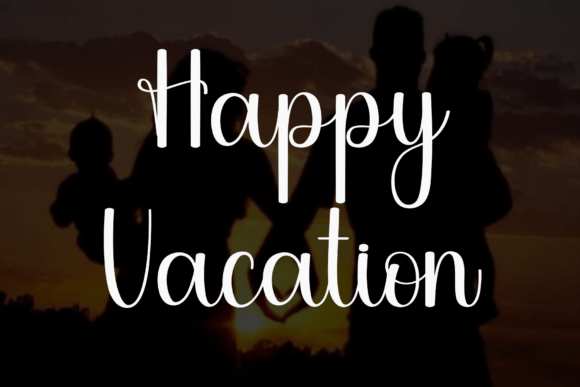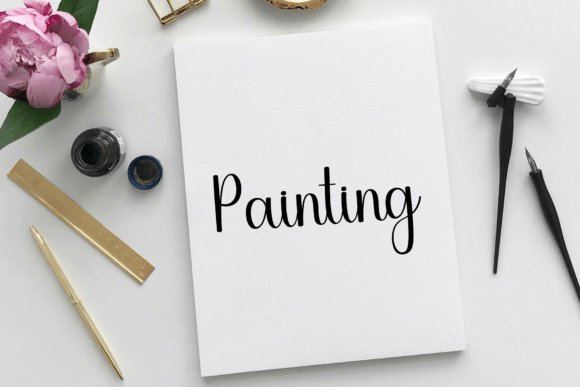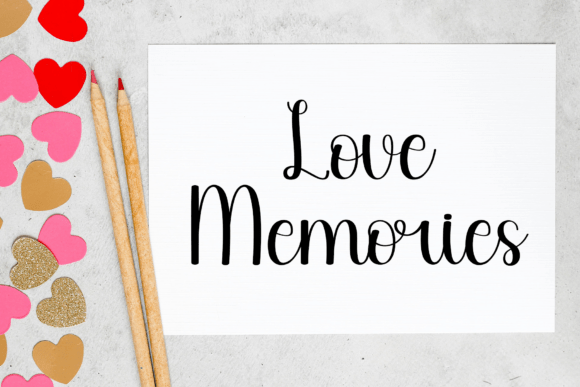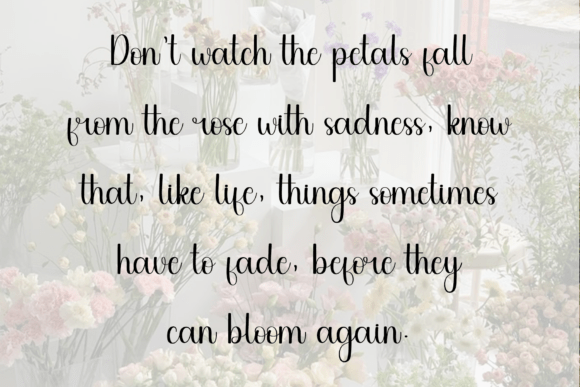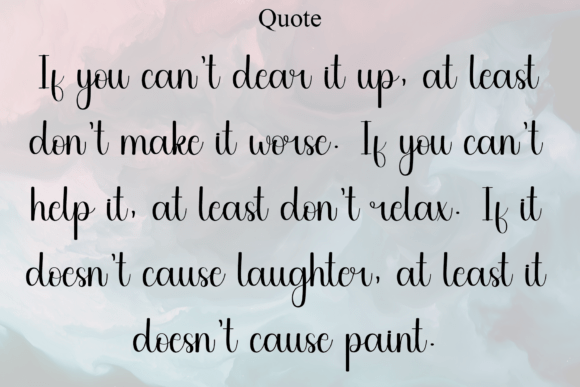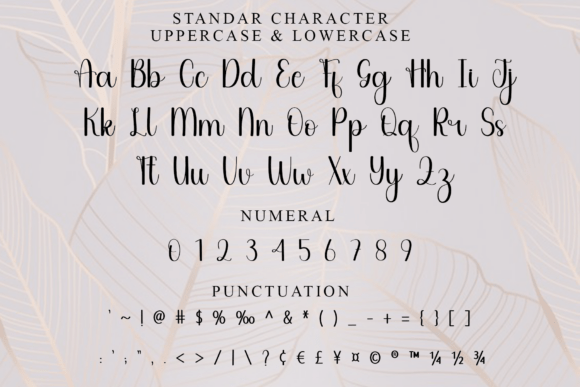
The Digital Planner Font: A Friendly and Creative Companion for Your Design Projects
I’ll never forget the time I was working on a personal project, a digital planner for my own use, and I just couldn’t find the right font to bring it all together. I wanted something that felt warm, friendly, and approachable – a font that would make my planner feel like a cozy coffee date rather than a sterile business meeting. That’s when I stumbled upon the Digital Planner font, and it instantly became my go-to companion for all my design projects.
So, what makes the Digital Planner font so special? Here are a few things I absolutely adore:
- ✨ Its casual, creative vibe is perfect for personal projects, invitations, and social media graphics.
- ✅ The round, playful strokes create a relaxed and approachable feel that’s hard to achieve with digital fonts.
- ✅ The font’s charming, hand-drawn aesthetic adds a fun and unique touch to any design.
Of course, no font is perfect, and there are a few quirks to keep in mind:
- ⚠️ Some users might find the font a tad too casual for formal projects – but that’s not necessarily a bad thing!
- 🤔 Depending on the application, you might need to adjust the font size or line spacing to get the desired look.
- Explore OpenType features like glyphs and stylistic alternates to add more personality to your text.
The Story Behind Digital Planner Font
While the origins of the Digital Planner font are shrouded in mystery, it’s clear that the designer was inspired by the warmth and playfulness of handwritten fonts. Imagine a designer, sipping coffee in a cozy café, brainstorming ideas for a font that would bring joy and creativity to digital designs. That’s the kind of love and care that’s gone into crafting the Digital Planner font.
| Is the Digital Planner font available in different weights or styles? | Currently, the font comes in a single weight, but its versatility and charm make it easy to use in a variety of design contexts. |